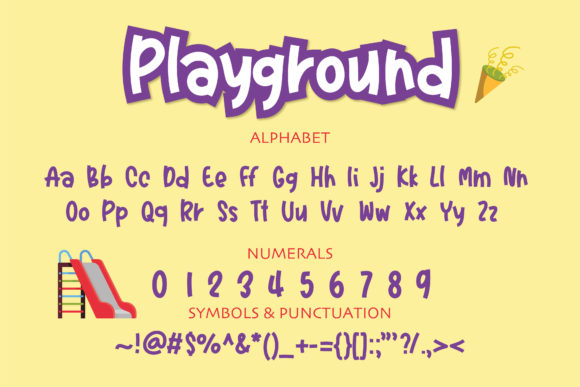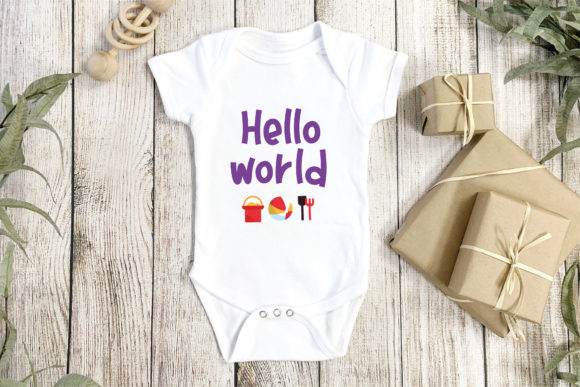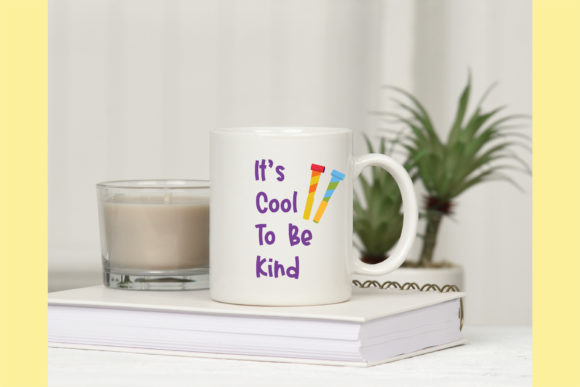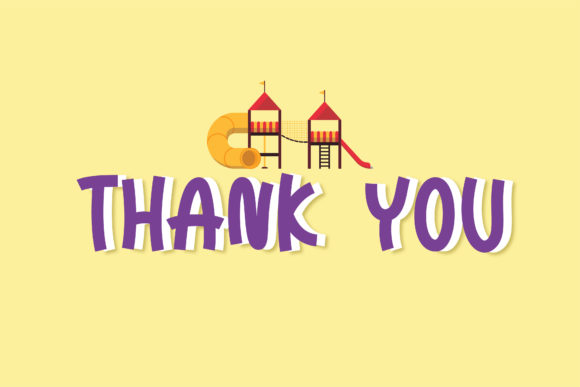
Playground Font
About Playground Font
Playground is a cute and fun display font. Its natural and unique style makes it incredibly fitting to a large pool of designs. The only limit is your imagination! It looks stunning on wedding invitations, thank you cards, quotes, greeting cards, logos, business cards, and every other design which needs a quirky touch.